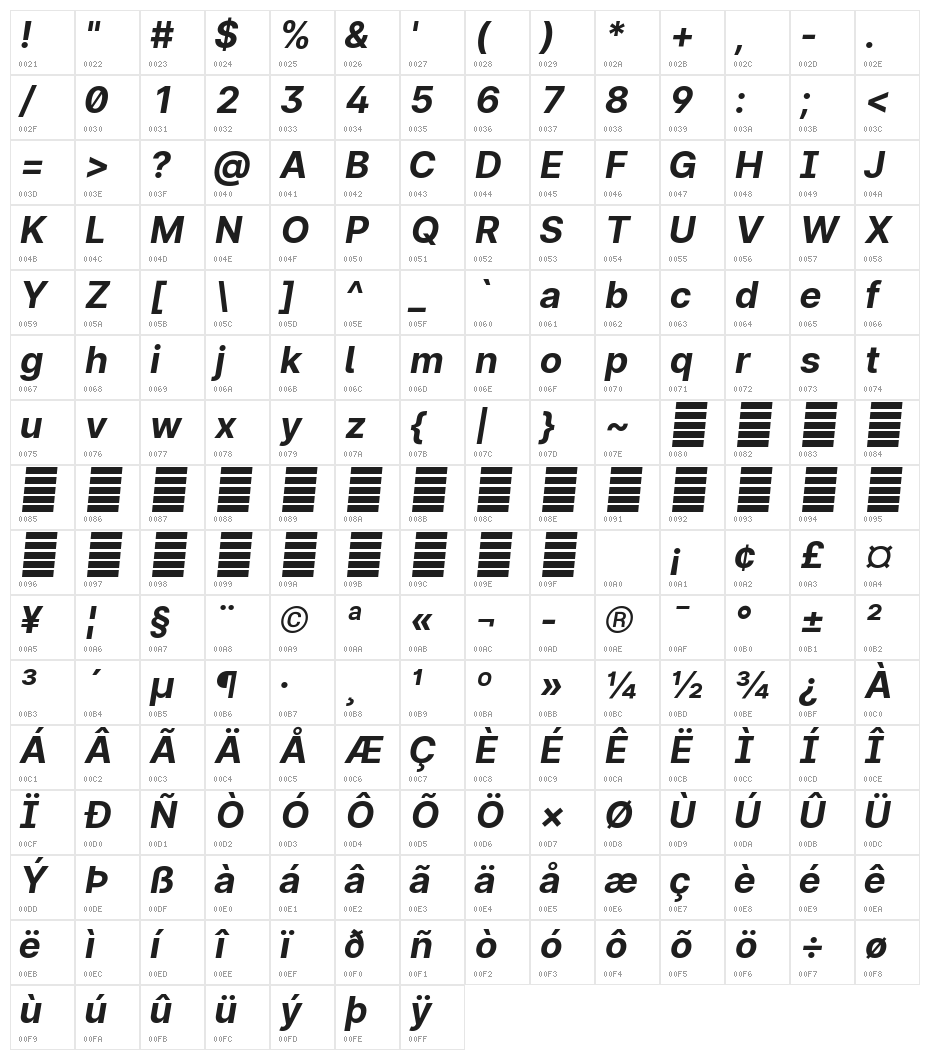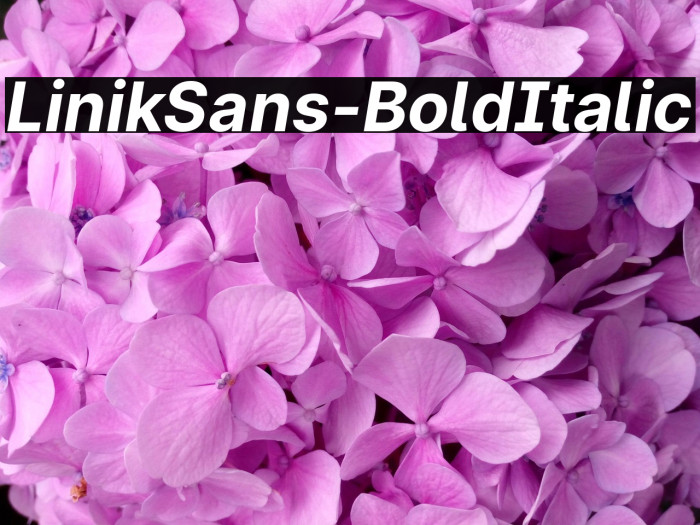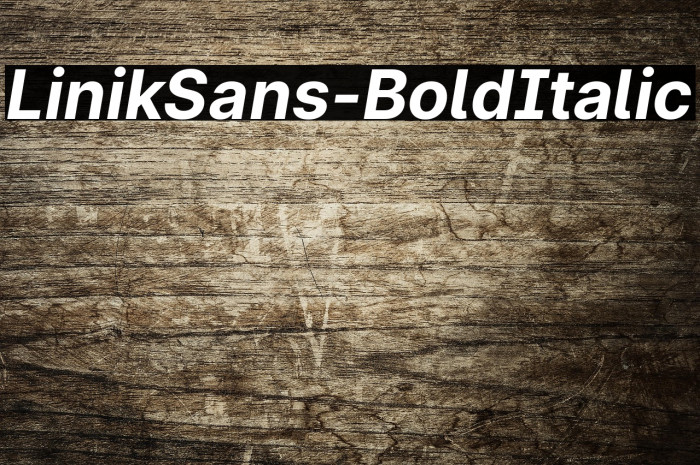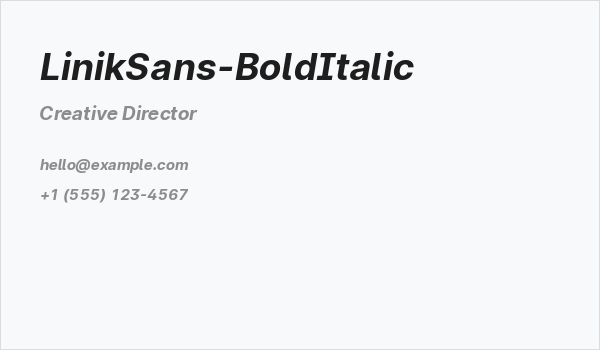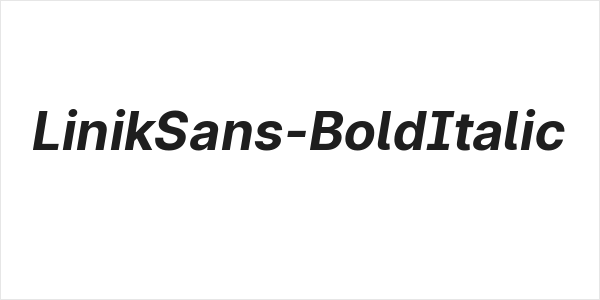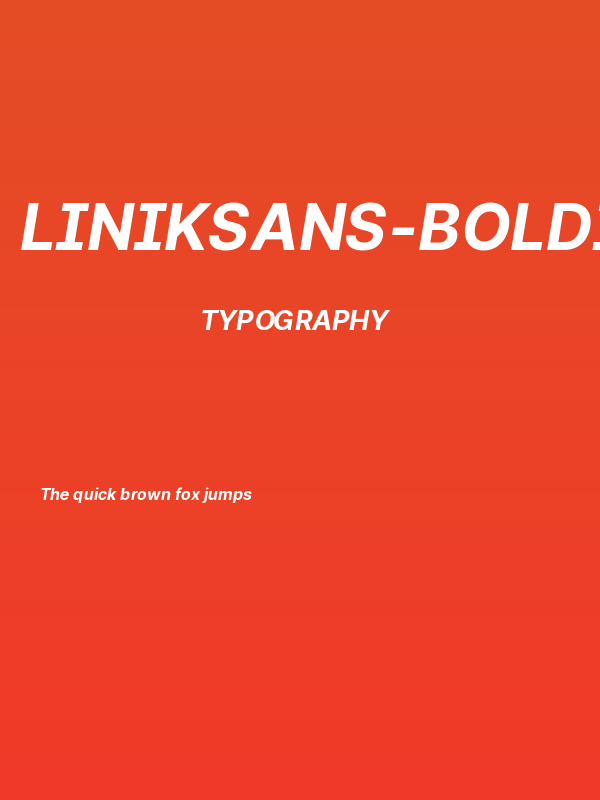
LinikSans-BoldItalic Font
LinikSans-BoldItalic Description
This font features a bold and italicized style, characterized by its clean and modern sans-serif design. The letters are slightly slanted, giving a dynamic and forward-moving appearance. The strokes are uniform in thickness, contributing to a consistent and cohesive look across all characters. The font maintains a balanced proportion between height and width, ensuring readability and versatility. Its smooth curves and sharp edges create a contemporary aesthetic, making it suitable for various design applications. The numerals and special characters are well-integrated, maintaining the overall style and enhancing the font's usability.
| Use Case | Headlines, Logos, Advertising |
| Proposed Projects | Ideal for branding, advertising, headlines, and digital media projects where a modern and bold statement is needed. |